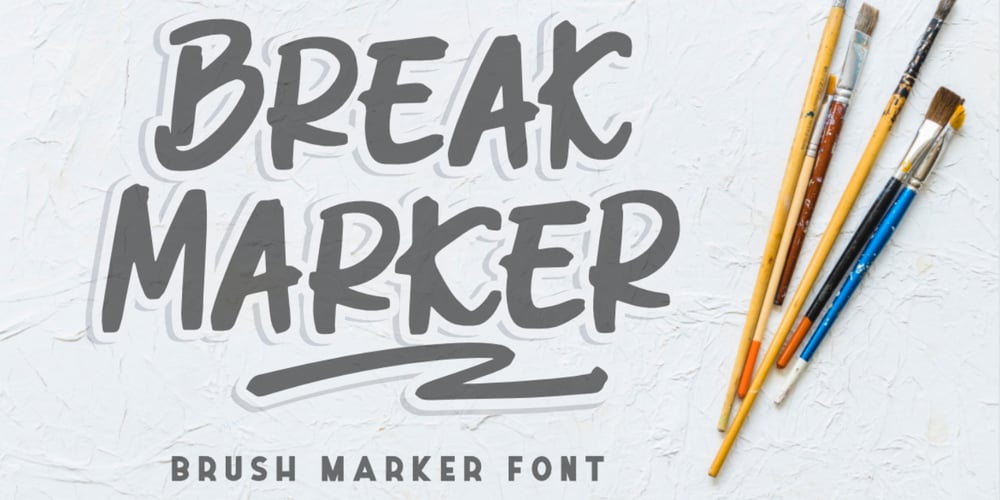
Break Marker Font Family was designed by Bayu Aji Fais Mursid and published by Bayuktx. Break Marker contains 1 styles and family package options. Break Marker – Brush Marker Font, This font is made with a high premium quality level which you can use as flyers, quotes, posters, banners, packaging, merchandise, logotypes and much more.FEATURES :* Uppercase* Number* Punctuation* Multilingual* PUA Encode* OpentypeFILES INCLUDED :* Break MarkerThank you